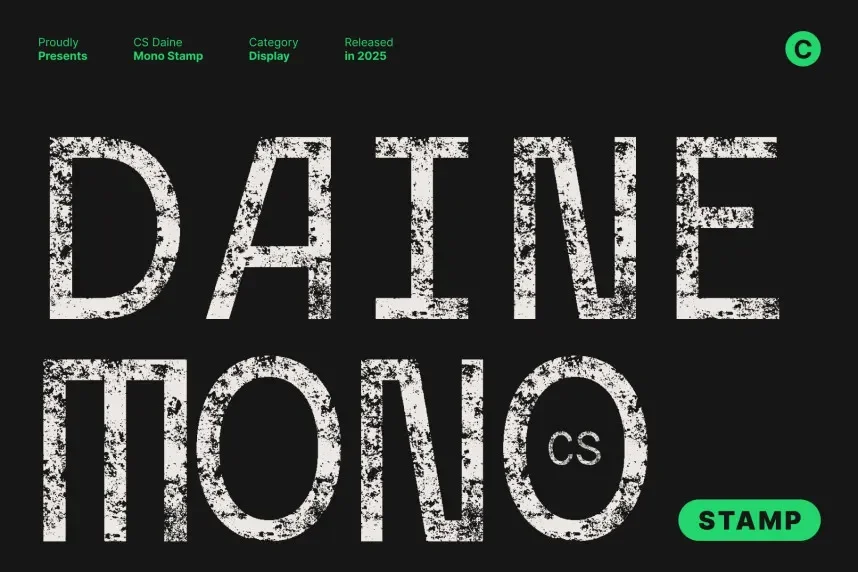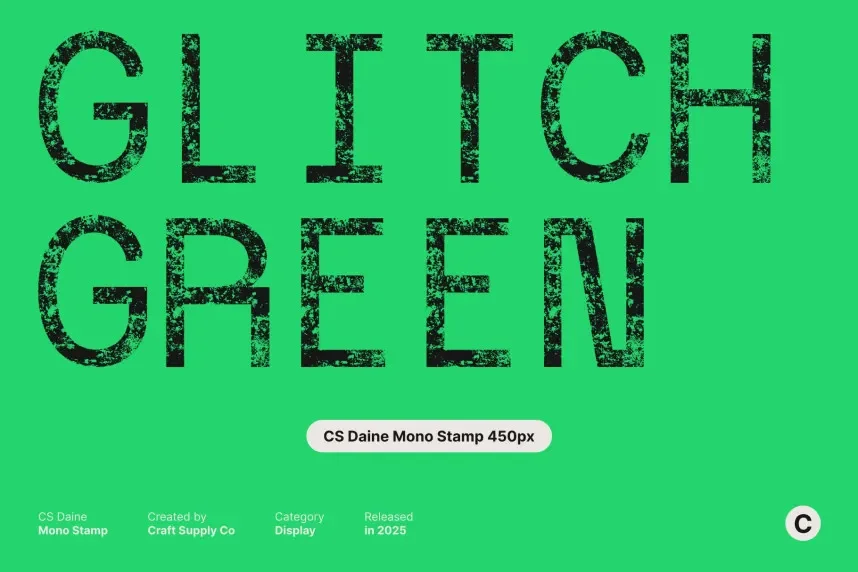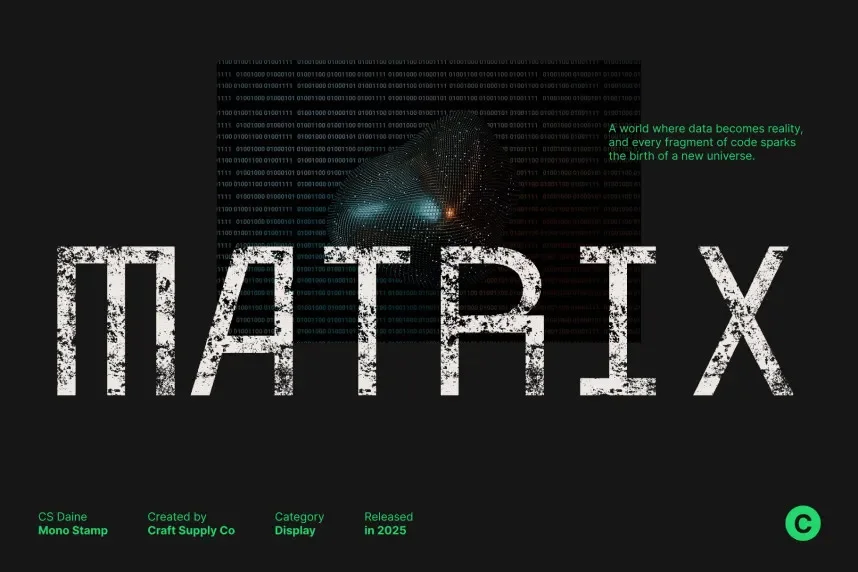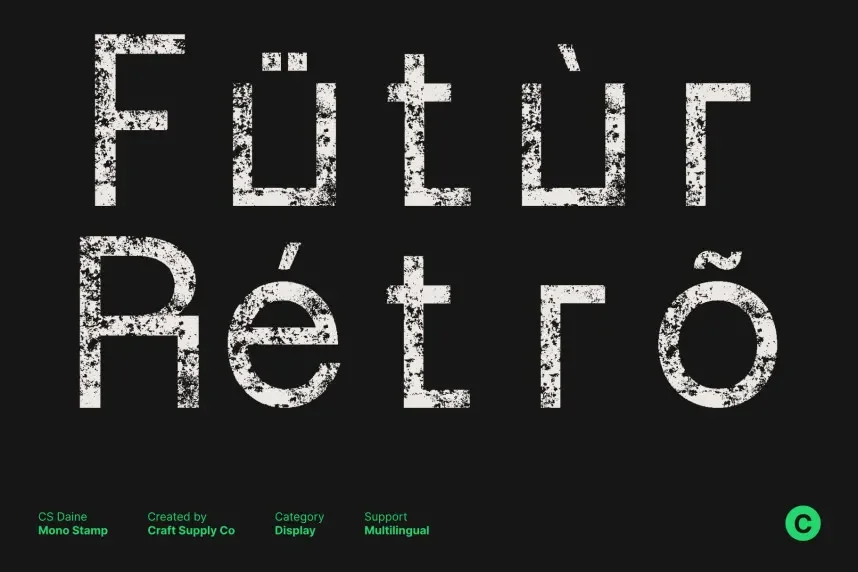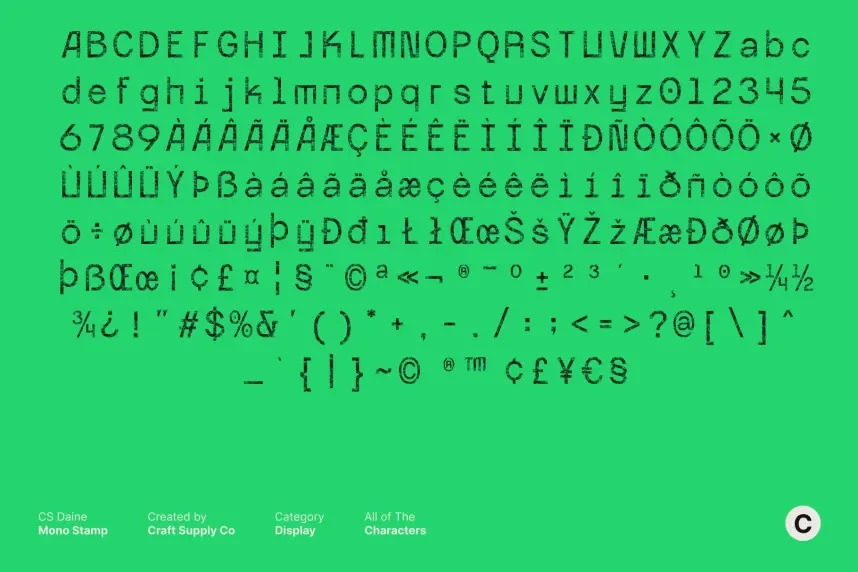
CS Daine Mono Stamp Font is a monospaced, sans-serif font that combines modern minimalism with a stamped design. Its evenly spaced, bold characters make it perfect for creating clean, structured designs like logos, business cards, and digital interfaces.